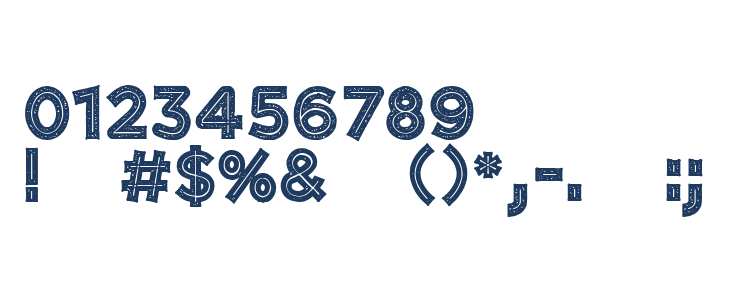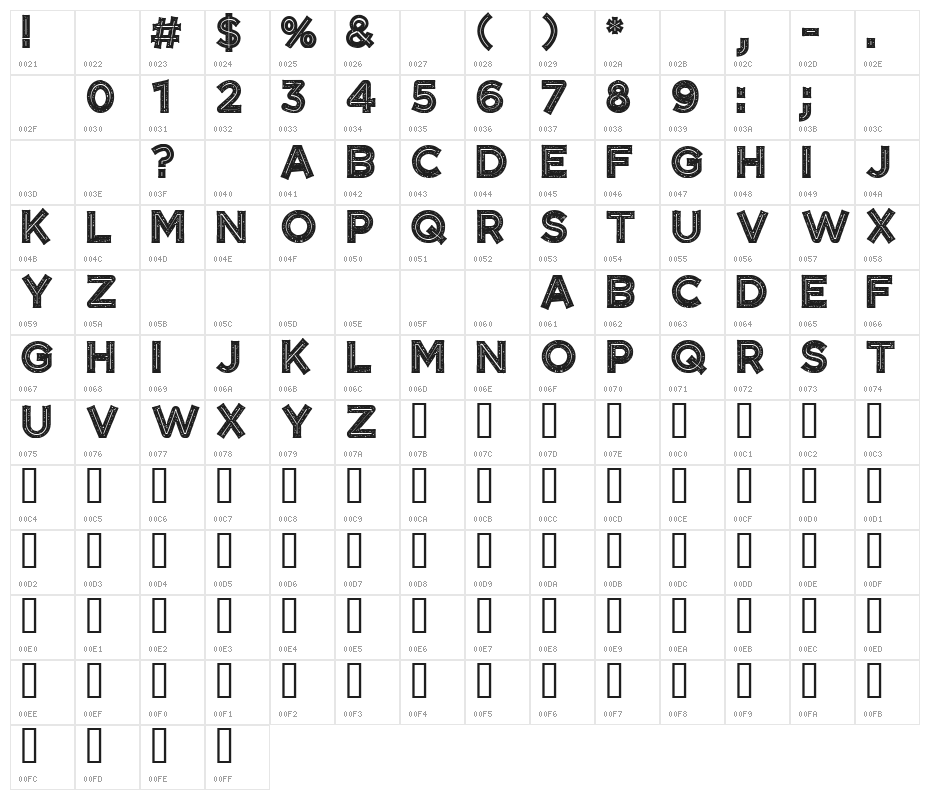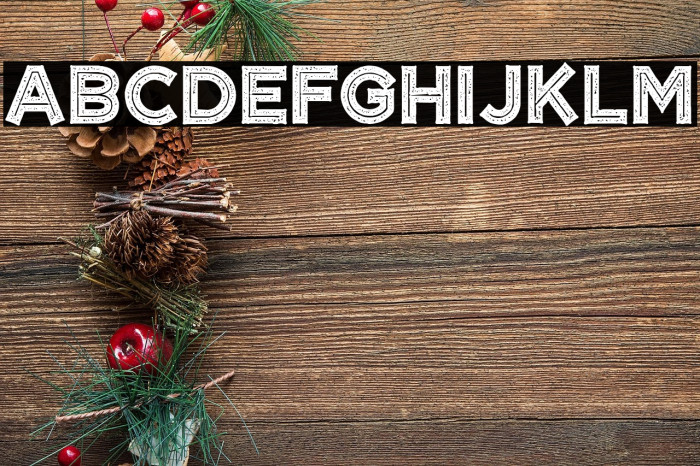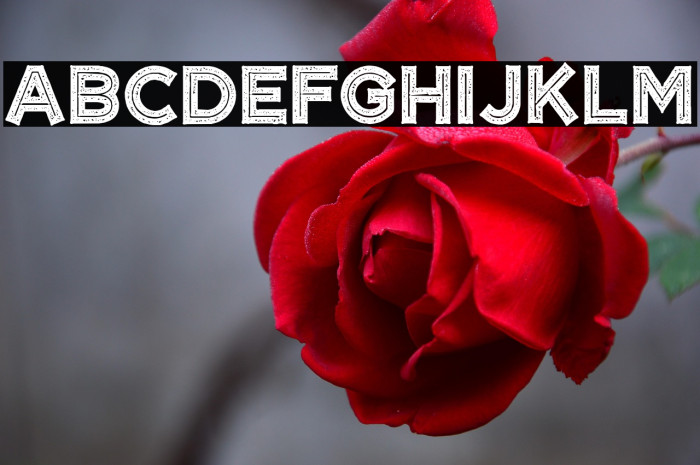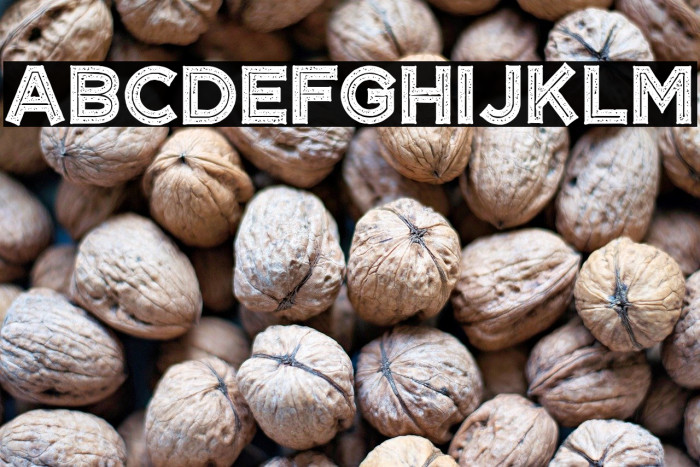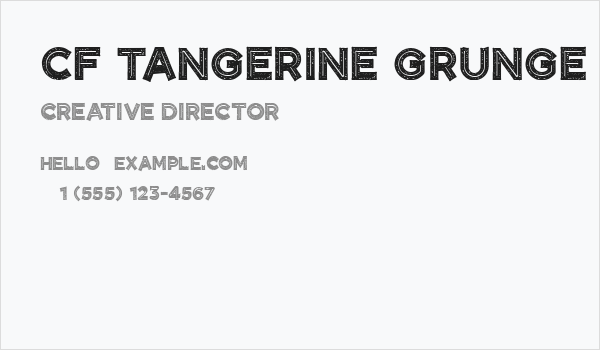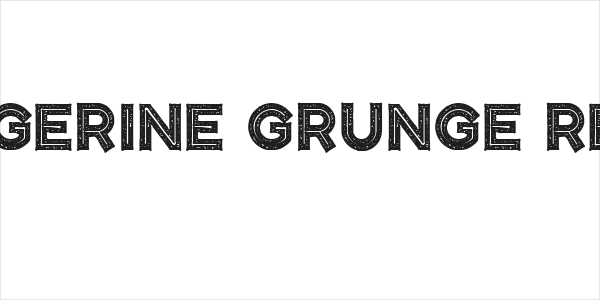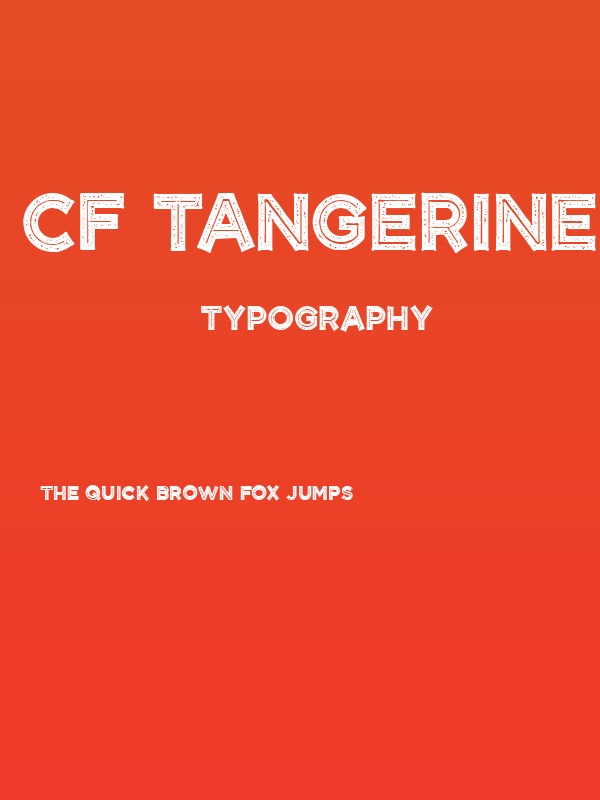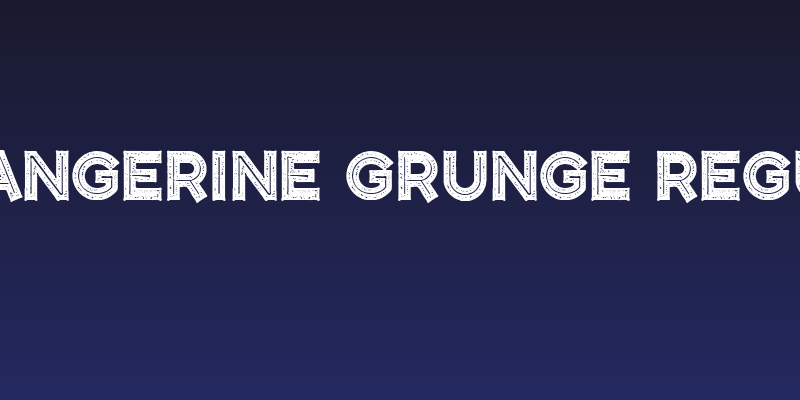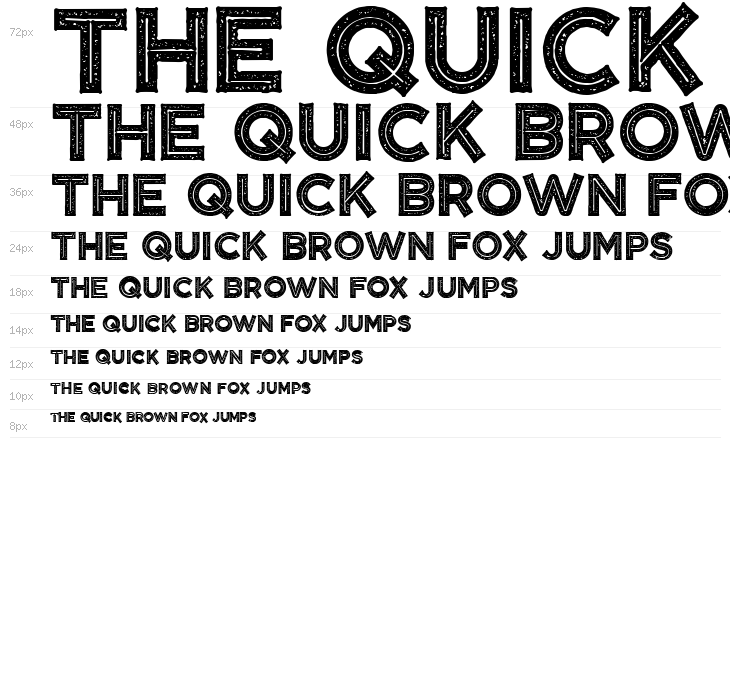
CF Tangerine Grunge Regular Font
CF Tangerine Grunge Regular Description
This font features a bold, decorative style with a grunge texture that adds a distressed, vintage feel. The uppercase and lowercase letters are consistent in width, providing a uniform appearance. The numbers and special characters maintain the same grunge aesthetic, making the font suitable for creative projects. The characters are well-defined with a slight roughness around the edges, enhancing the overall grunge effect. This font is ideal for designs that require a bold statement with a touch of nostalgia and artistic flair.
| Overall Style | Vintage, Decorative |
| Proposed Projects | Perfect for posters, album covers, branding, and any project needing a bold, artistic touch. |